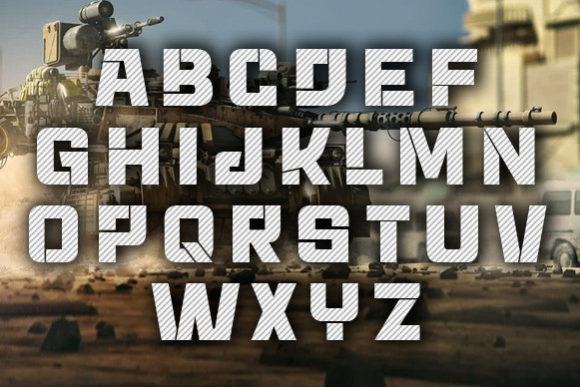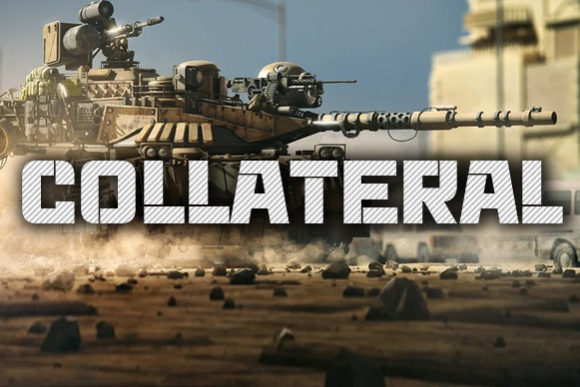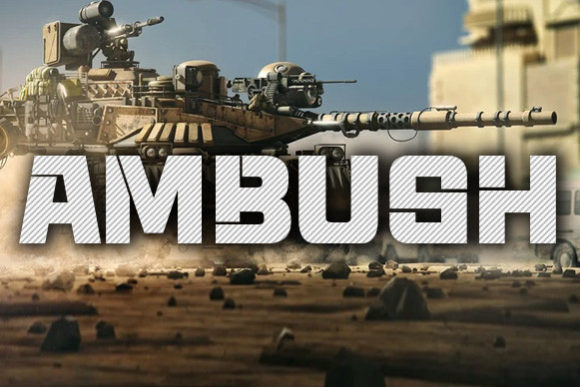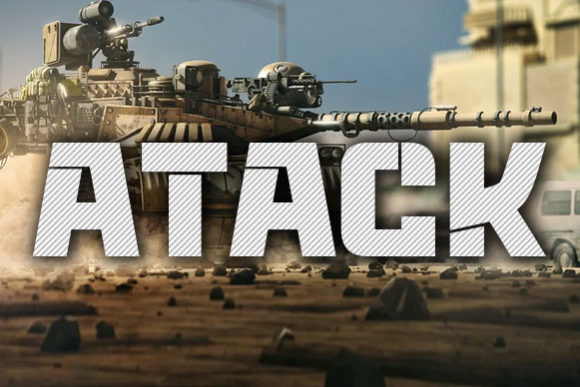
Introduction to Panzer Font
You know that moment when you’re working on a creative project and everything just comes together – the colors, the shapes, the typography? It’s like a spark of inspiration hits you and suddenly, your design goes from good to great. For designers, finding that perfect font can be the game-changer that takes a project to the next level. And that’s exactly where the Panzer Font comes in – a bold and sharp-looking display font that’s sure to inspire your work.
As a valuable design resource, the Panzer Font offers a high-quality alternative to more generic fonts. Its sleek and modern design makes it perfect for creative projects that require a touch of sophistication. Plus, with a transparent background, you can easily customize it to fit your design needs. Whether you’re a seasoned designer or just starting out, the Panzer Font is a must-have in your design toolkit.
- High-quality font design ideal for creative projects
- Designed with a unique, bold aesthetic for maximum impact
Honest Review: Panzer Font
As a designer, I’m always on the lookout for high-quality design resources that can elevate my creative project. Recently, I stumbled upon the Panzer Font, and I’m excited to share my honest review with you.
- ✨ High-quality typography: The Panzer Font boasts clean lines, precise strokes, and a well-balanced design that makes it perfect for any creative project.
Any limitations:
- ⚠️ Limited font styles: While the Panzer Font is a great starting point, I wish it had more font styles to offer, such as italic or bold variations.
- ⚠️ Limited language support: I found that the font doesn’t support as many languages as I would have liked, which might be a limitation for designers working on international projects.
Overall, I’m impressed with the Panzer Font’s clean design and versatility. While it may have some limitations, it’s a great addition to any designer’s toolkit. If you’re looking for a high-quality font for your creative project, I’d definitely recommend giving it a try.
Tips for Getting the Most Out of Panzer Font
Use Panzer Font in conjunction with other design elements to create a cohesive and visually appealing design. Experiment with different font sizes, colors, and styles to find the perfect combination for your project.
The Panzer Font is commonly used in design projects that require a unique and eye-catching font. Some common use cases include:
- Infographics and data visualizations
- Print materials, such as business cards and brochures
- Digital materials, such as social media graphics and presentations